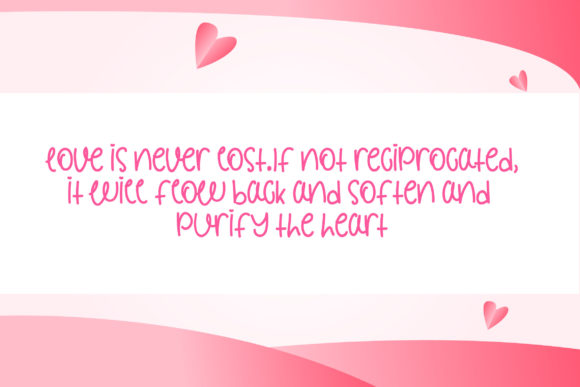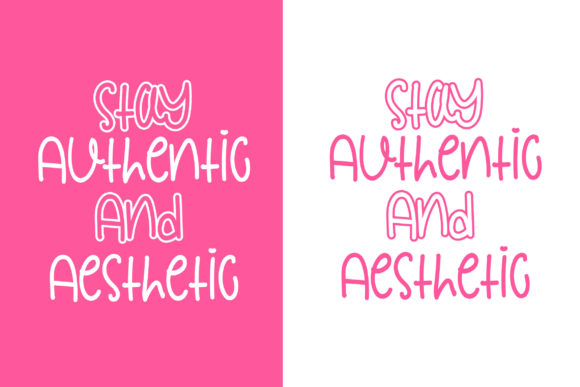
Follow Heart Font: Free Download Now
Introduction to Follow Heart Font
Follow Heart is a round lettered and sweet handwritten font.
Whether you are using it for cartoon-related designs, children games, quotes, titles, brand names, book covers, posters, or just any creation that requires a touch of joy, this font is a great choice .
Follow Heart Font offers exceptional quality and versatility, making it a valuable addition to your design toolkit. Whether you’re creating for personal projects or commercial use, Follow Heart Font delivers professional results.